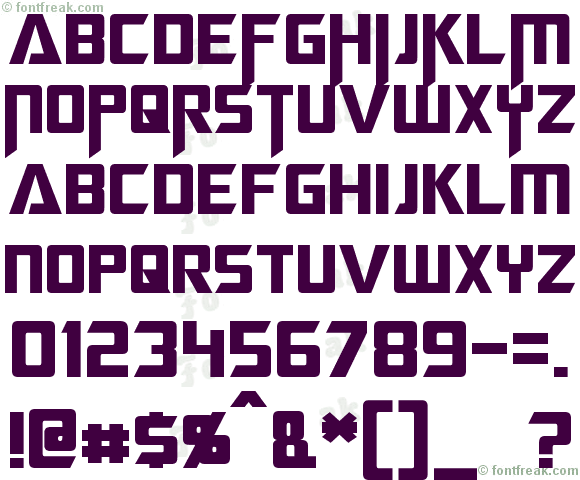
Megatron
Megatron, designed by Neale Davidson in 2011, is a striking display font that embodies a modern and bold aesthetic. This sans-serif typeface features a geometric structure, characterized by its thick stroke weight and minimal contrast, which gives it a powerful presence. The font showcases sharp angles and clean lines, making it highly legible while also providing a distinctive look. The spacing between characters is well-balanced, ensuring clarity in both large and small applications.
Ideal for a variety of creative projects, the Megatron font excels in uses such as movie posters, where its bold nature can capture attention; branding for tech startups, providing a contemporary feel; sports merchandise, conveying energy and excitement; and promotional materials for events, ensuring readability from a distance. Additionally, it can be effectively utilized in social media graphics, appealing to content creators looking for a striking visual impact.
What makes the Megatron font stand out is its ability to blend modernity with functionality. The bold, geometric design captures attention while remaining versatile enough to fit into numerous contexts. For those interested in adding a touch of contemporary flair to their designs, the Megatron font free download is an excellent choice, offering both style and practicality for a wide range of applications.